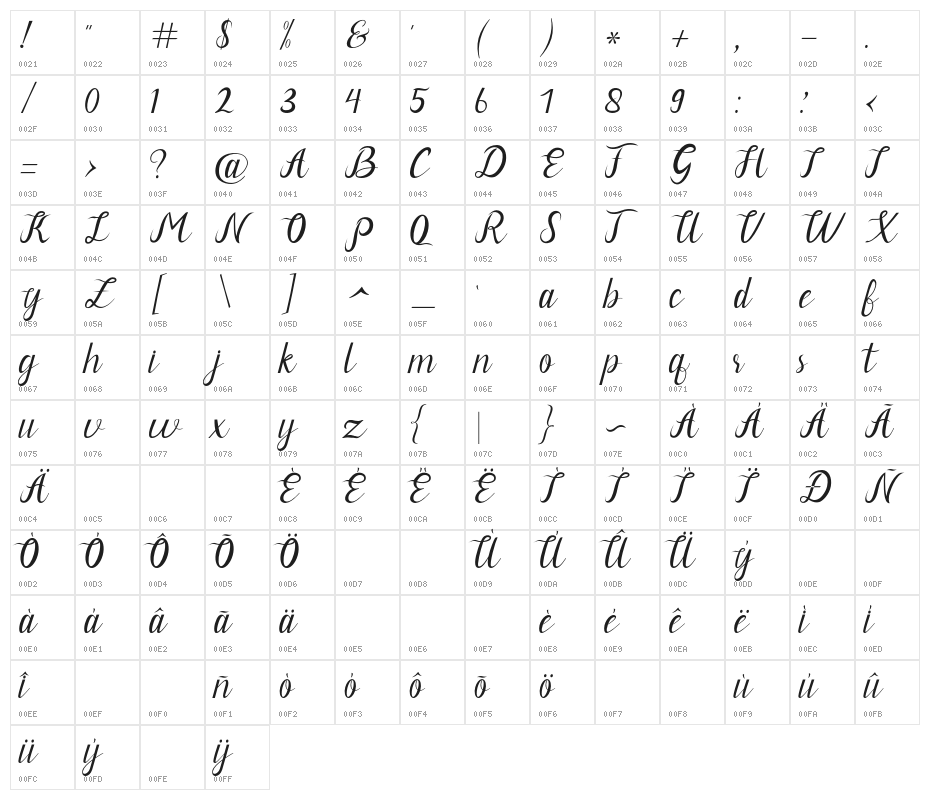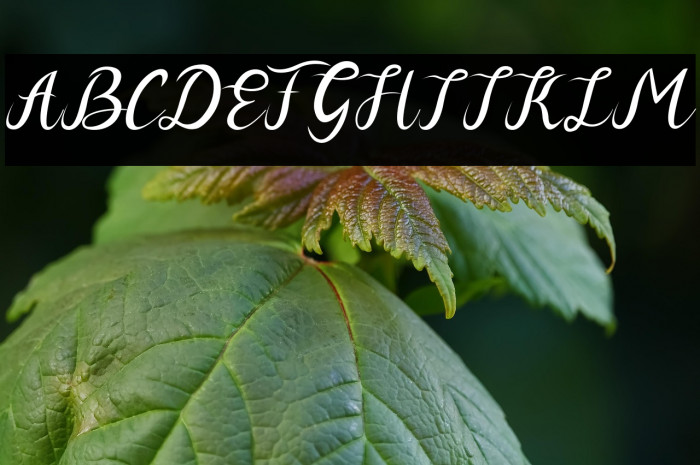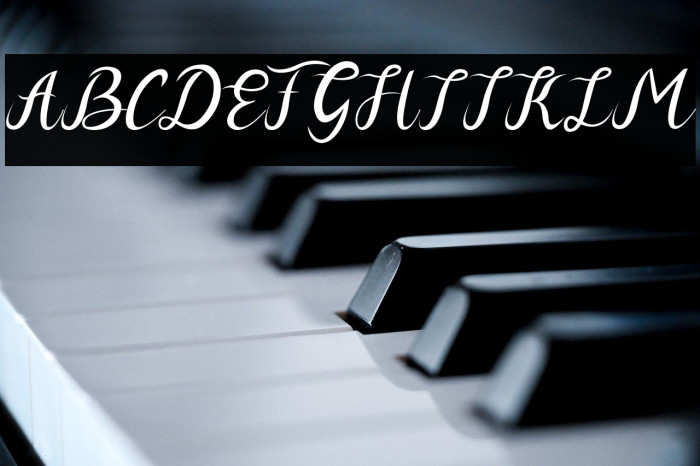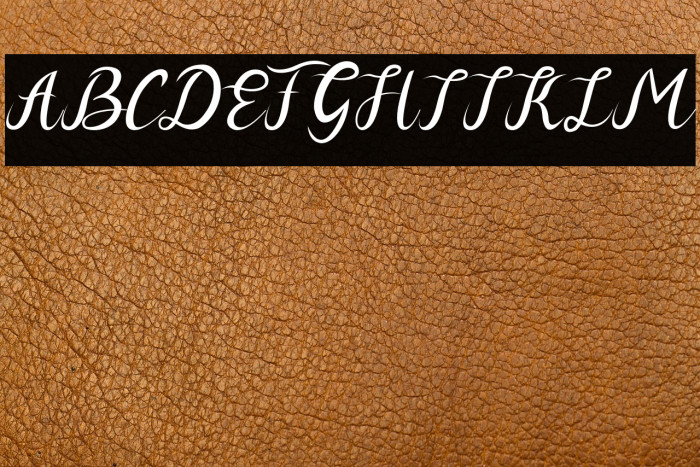
Neguhetty Font
Neguhetty Description
This font features an elegant and flowing script style, characterized by its smooth, cursive strokes and graceful curves. The uppercase letters exhibit a sophisticated flair with extended ascenders and descenders, while the lowercase letters maintain a consistent and harmonious flow. The numerals are designed to complement the script style, offering a balanced and cohesive look. Special characters are integrated seamlessly, enhancing the font's versatility. This font exudes a sense of elegance and refinement, making it suitable for formal and decorative applications.
| Categories | Script |
| Overall Style | Elegant |
| Use Case | Logos, Invitations, Decorative text |
| Proposed Projects | Ideal for wedding invitations, elegant branding, greeting cards, and decorative signage. |